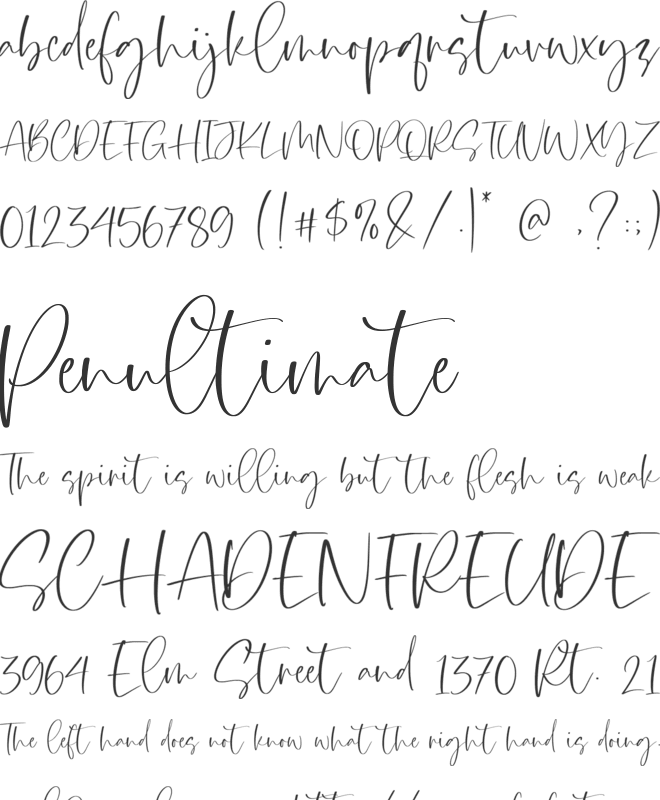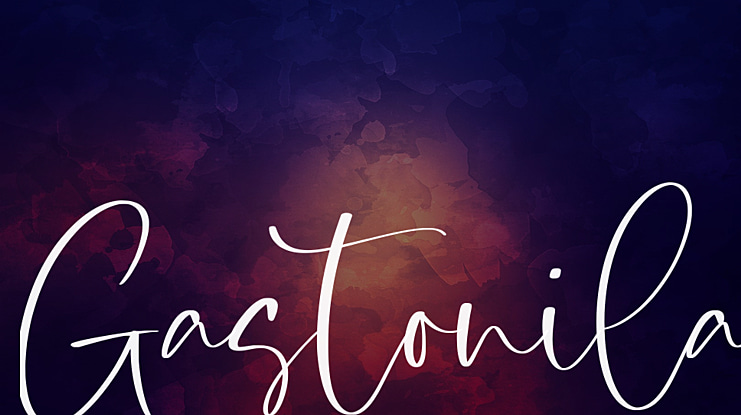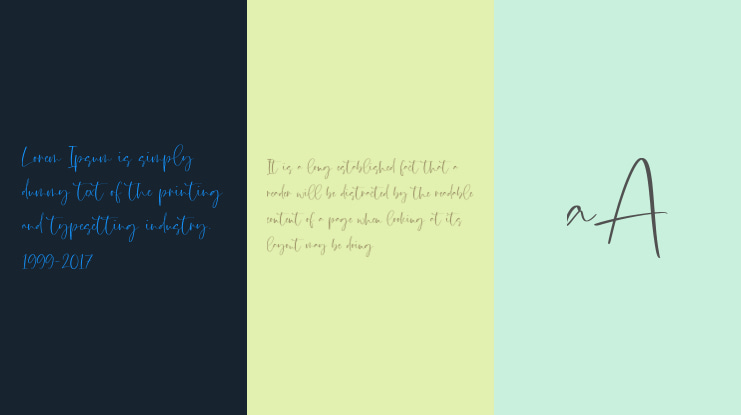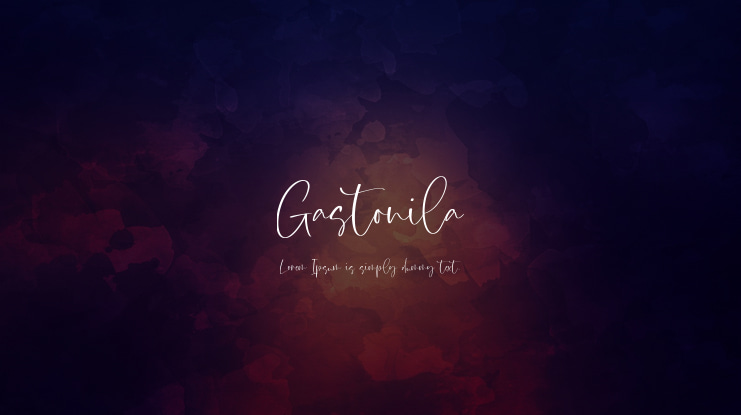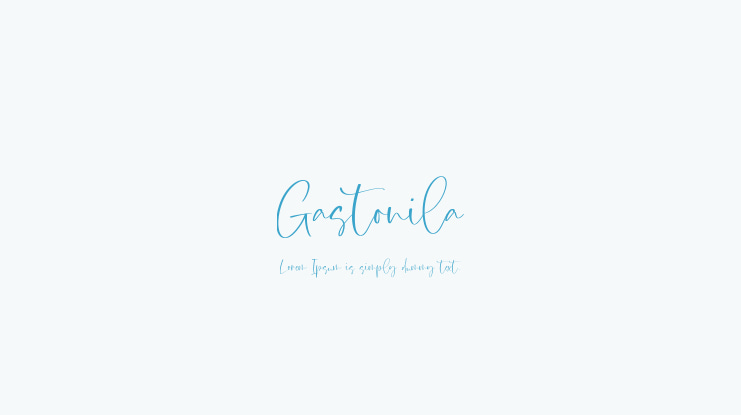
Gastonila is a sweet and delicate handwritten font. Dainty and joyful, this font will be ideal for writing wedding invitations, cards or any other design that may need a romantic, personalized touch!
-Full Set of standard alphabet and punctuation
-handwritten ligatures for a custom, hand-lettered look